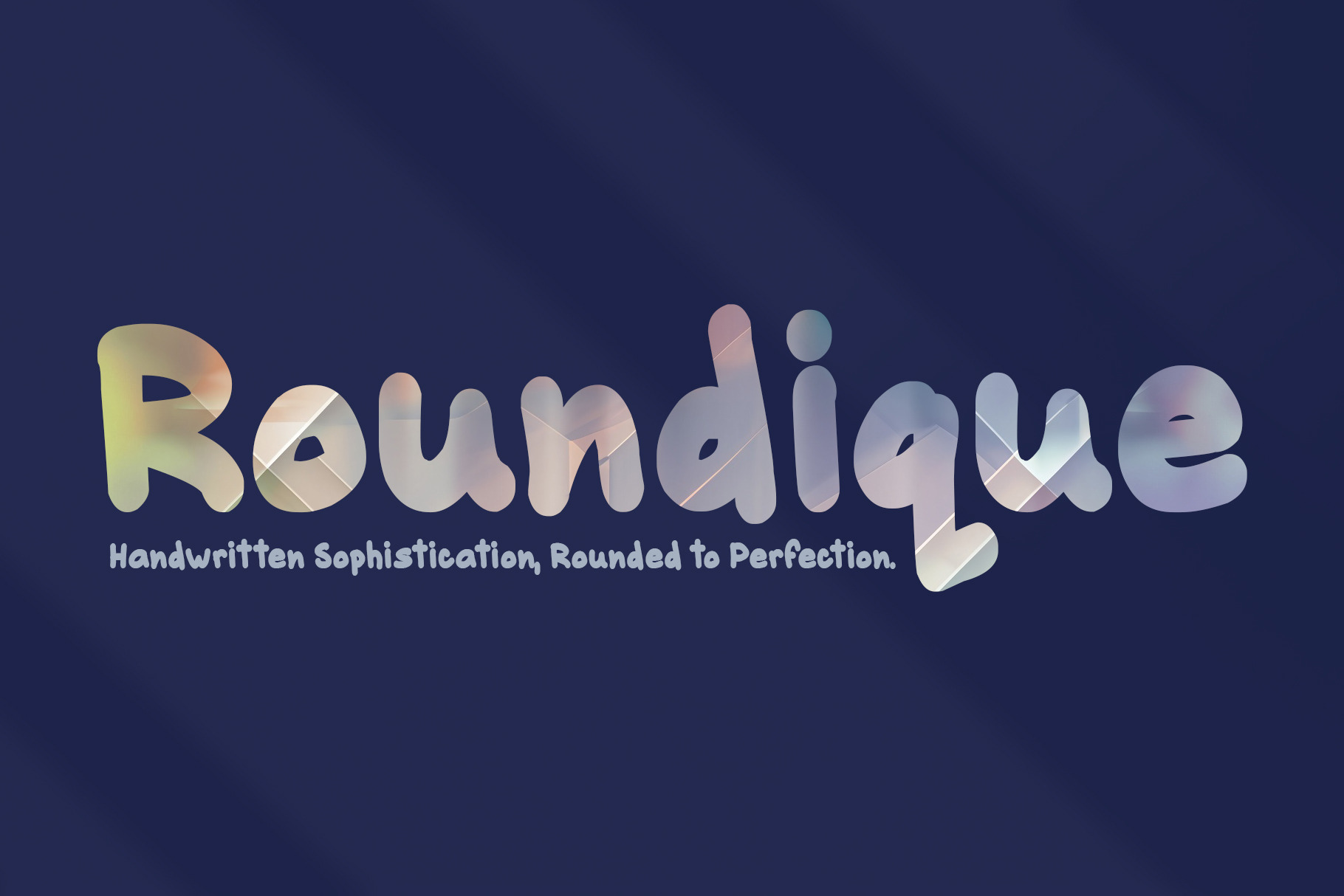
Roundique - Rounded Font
Meet Roundique: Your New Go-To Font Looking for a font that blends sophistication, functionality, and chic style? Your search ends with Roundique. This exceptional font features elegantly rounded corners paired with bold, stylish strokes, creating a versatile typeface for all kinds of creative projects.
Why You'll Love Roundique
Blend of Elegance and Functionality Roundique isn’t just aesthetically pleasing; it’s functional, offering a unique blend of sophistication and readability.
Versatile Design From business branding to artistic endeavors like posters and digital art, Roundique shines in a wide range of applications.
Enhanced Readability Designed with readability in mind, Roundique's rounded elements make it a perfect choice for both digital screens and printed materials.
Fine Attention to Detail Meticulously crafted, each curve and corner of Roundique is optimized for both beauty and functionality.
Common Uses
- Brand Identity
- Digital Designs
- Print Projects
- Social Media Posts
- Website Content